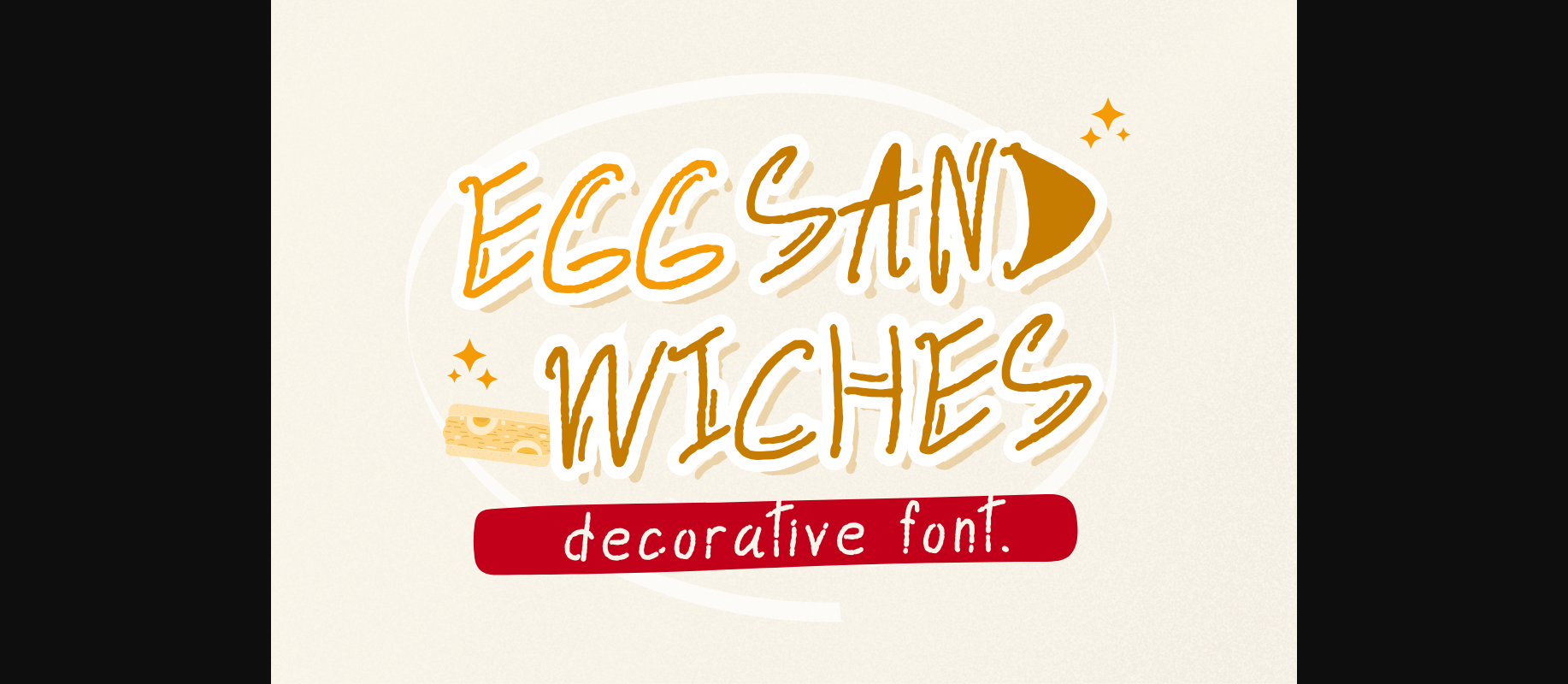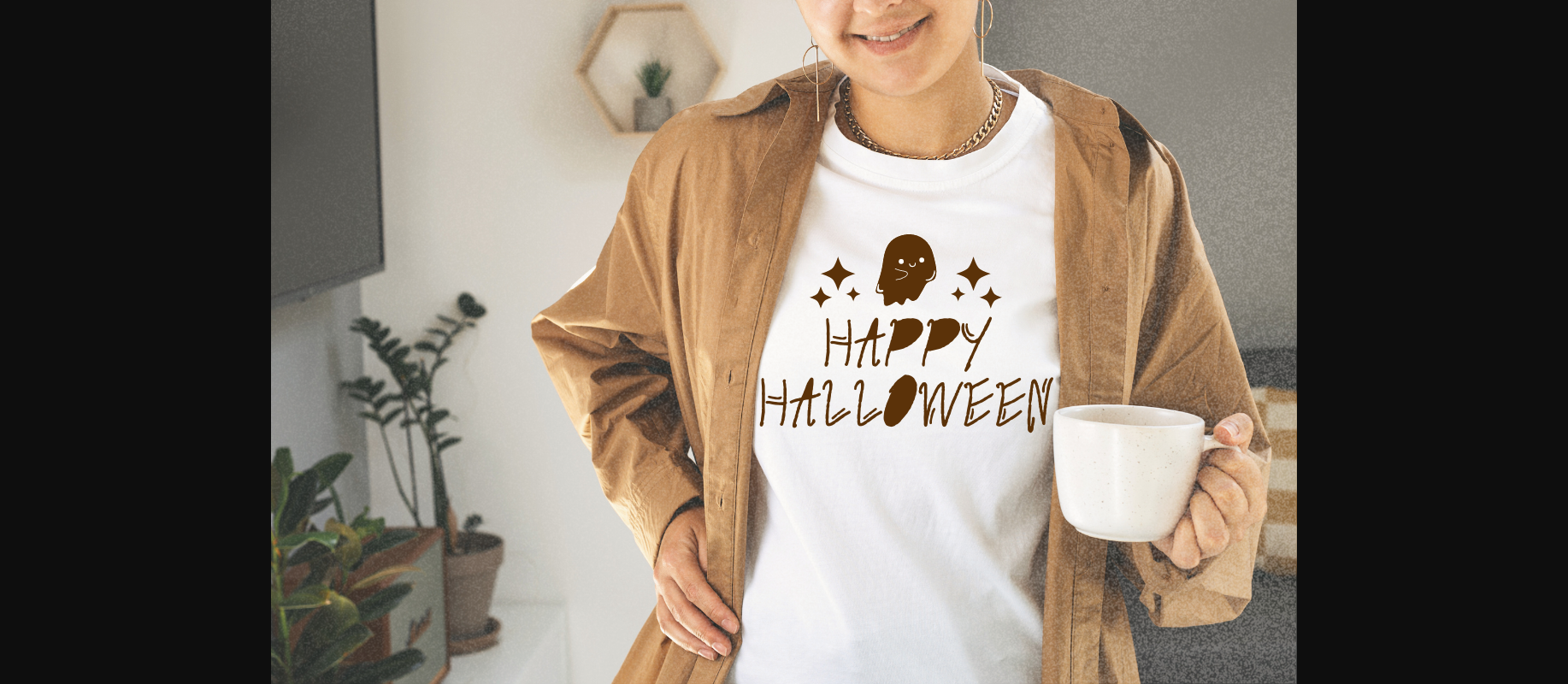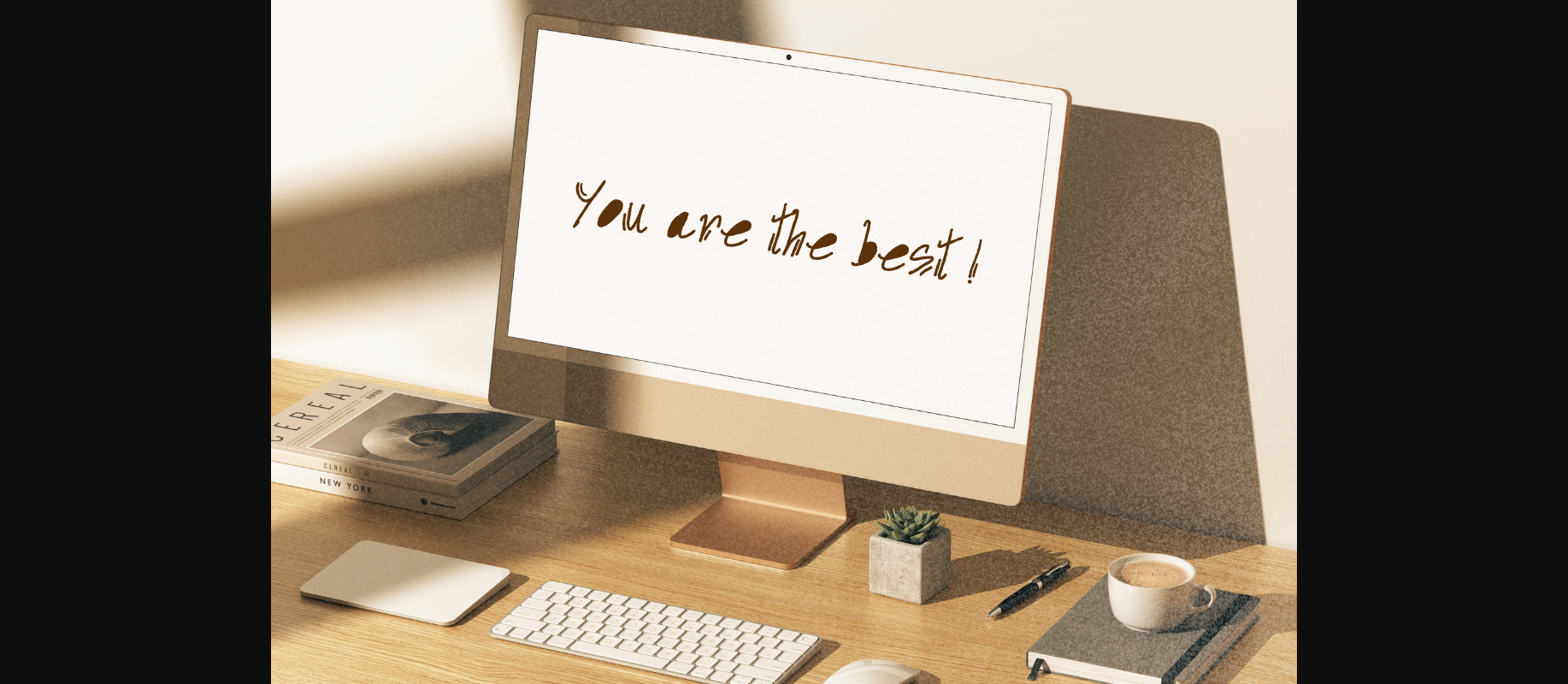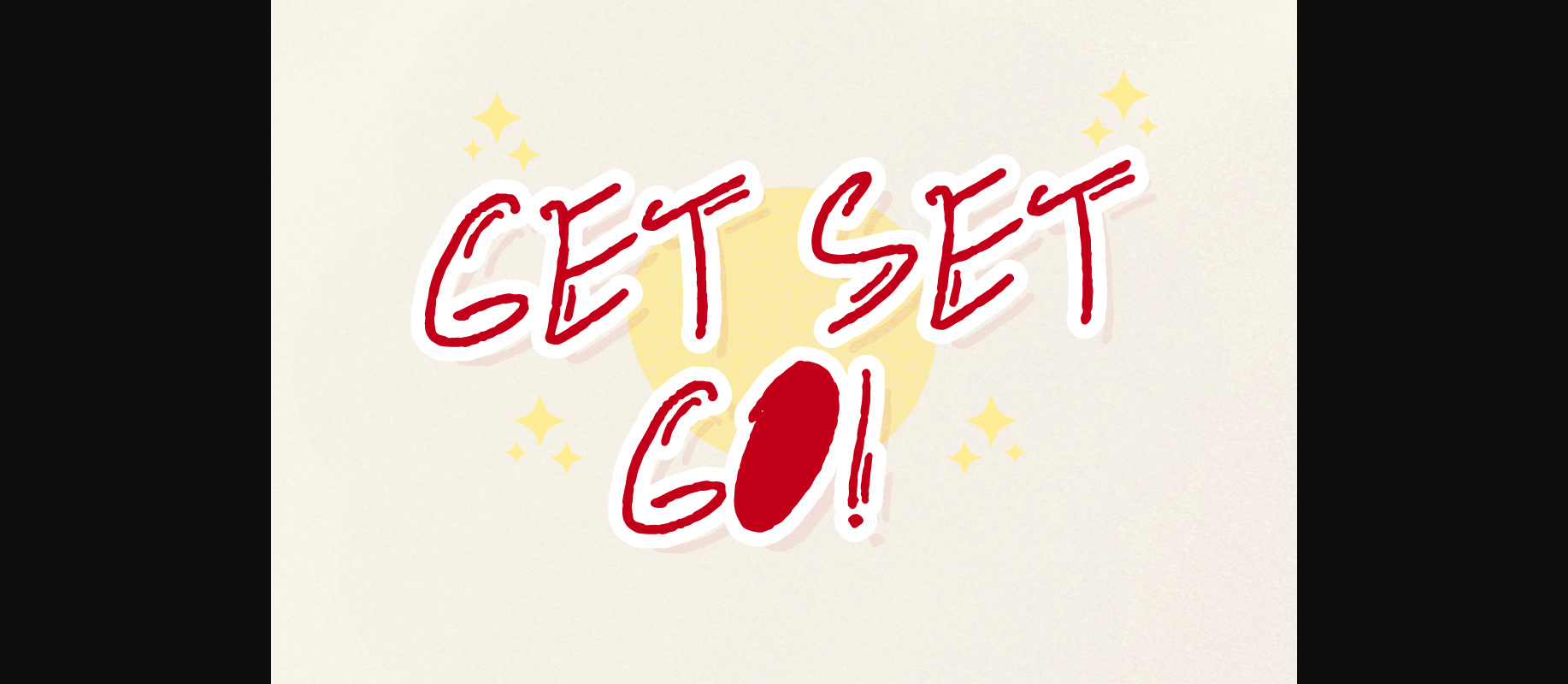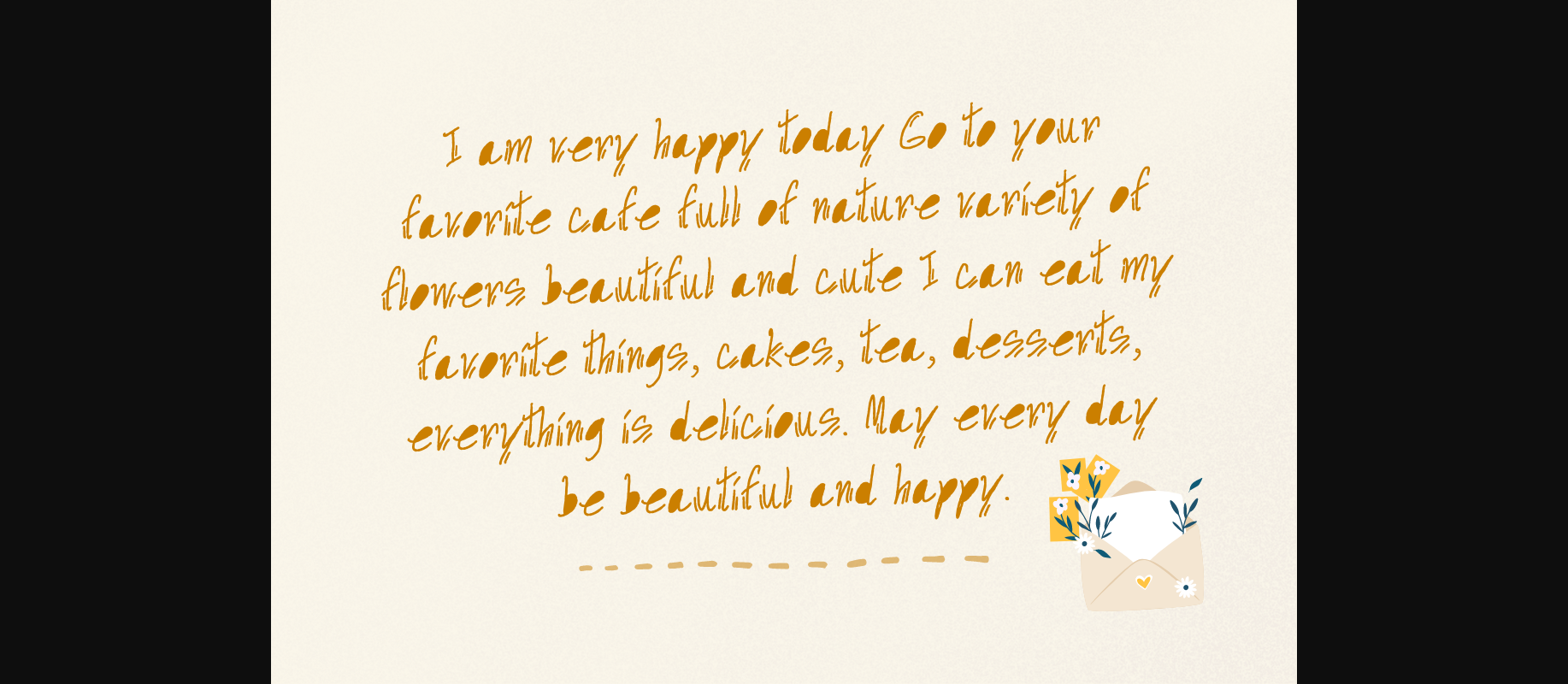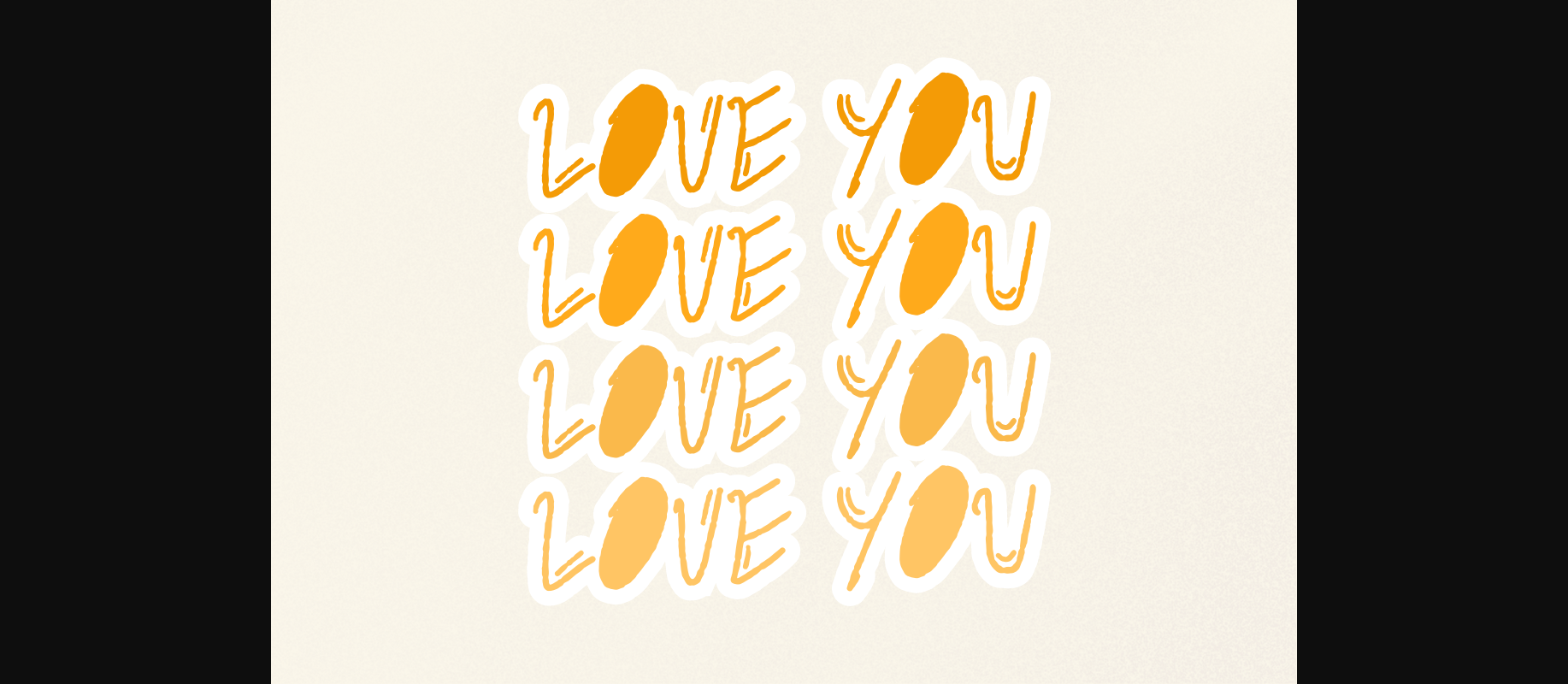
Egg Sandwiches Font
About Egg Sandwiches Font
Egg Sandwiches is a simple and cute decorative font that can be used to create a variety of works. Versatile, it can be used in a variety of applications from crafts for kids, teachers, to greeting cards.